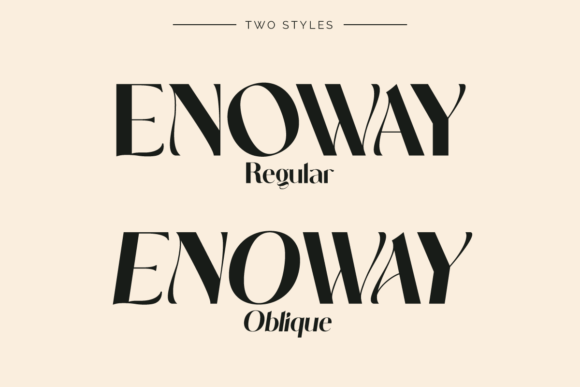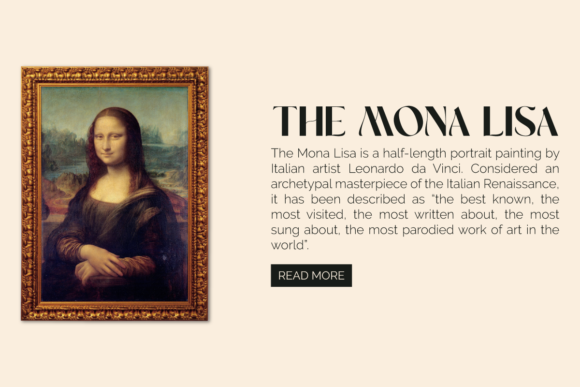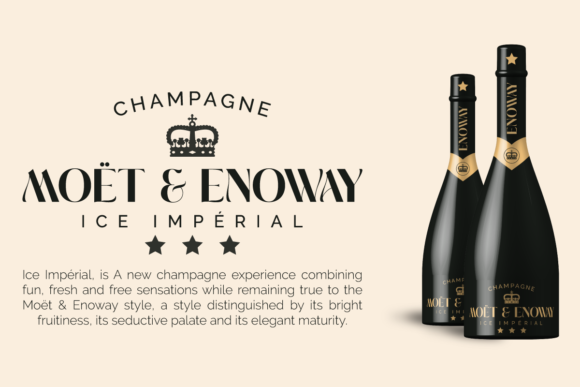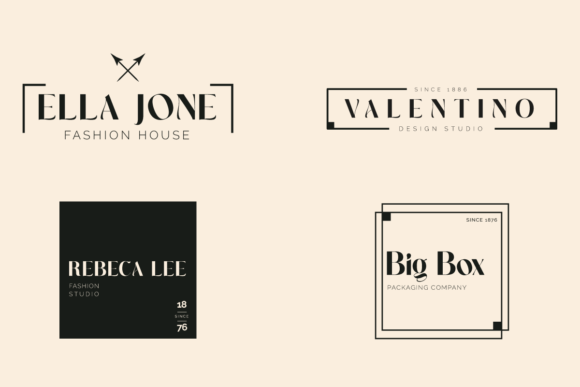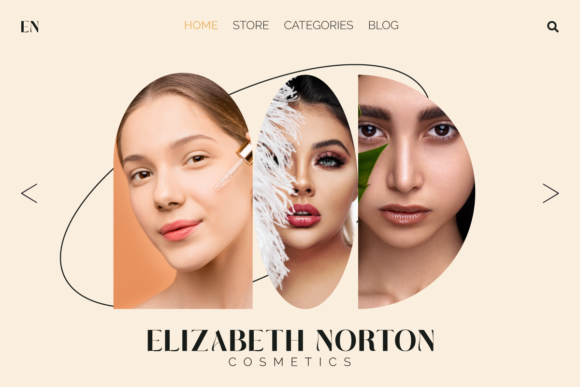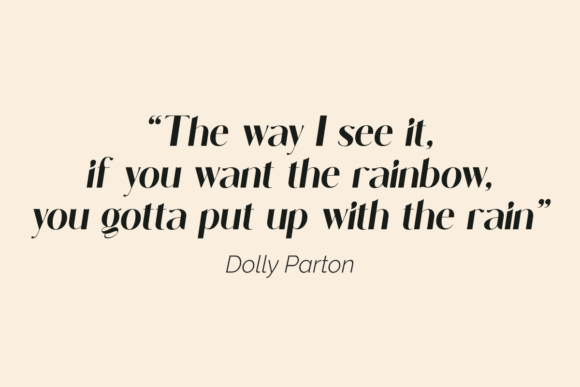
The Enoway Font: A Modern and Stylish Display Font for Your Creative Projects
I’ll never forget the struggle I faced while working on a branding project for a trendy fashion label. My client wanted a font that was modern, stylish, and would make their logo stand out. I scoured the internet, trying out font after font, but nothing seemed quite right. That was until I stumbled upon the Enoway font. ✨
Enoway is a modern and stylish display font that has become a go-to in my design arsenal. Its sleek lines, elegant curves, and versatility make it perfect for a wide range of creative projects, from logotypes and headlines to posters, movies, and even social media graphics.
An Honest Review of Enoway Font
- ✨ Unique and distinctive design: Enoway font has a one-of-a-kind look that will make your designs stand out from the crowd.
- ✅ Highly versatile: This font can be used for a wide range of projects, from fashion and beauty to music and entertainment.
- 💡 Easy to read: Despite its stylized design, Enoway font is surprisingly easy to read, even at smaller sizes.
- 🎨 Great for branding and advertising: The Enoway font is perfect for creating eye-catching logos, headlines, and ad copy.
While Enoway font is an excellent choice for many projects, there are a few things to keep in mind: 🤔
- ⚠️ Not suitable for body text: Due to its stylized design, Enoway font is best used for headlines and titles, rather than body text.
- ⚠️ May not work well with certain colors: The Enoway font can be quite bold, so it may not work well with very bright or overpowering colors.
- Experiment with different OpenType features, such as ligatures and stylistic alternates, to add more flair to your text.
- Experiment with different glyphs and stylistic alternates to add more variety to your text.
The Backstory of Enoway Font
The Enoway font was designed by a team of typographers who wanted to create a modern and stylish display font that would meet the needs of creative professionals. Inspired by the latest design trends and technological advancements, the Enoway font was crafted to be both elegant and versatile.
Q: What is the Enoway font best used for?
A: The Enoway font is best used for logotypes, headlines, posters, movies, games, magazines, books, comics, cartoons, YouTube, Instagram, websites, and any other creative design projects that require a modern and stylish display font.
Q: Is Enoway font easy to read?
A: Yes, despite its stylized design, the Enoway font is surprisingly easy to read, even at smaller sizes.